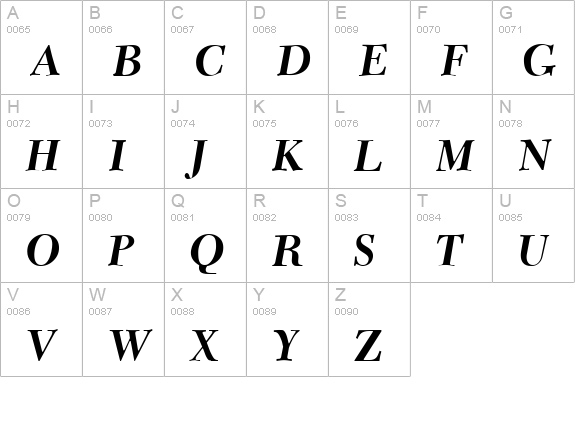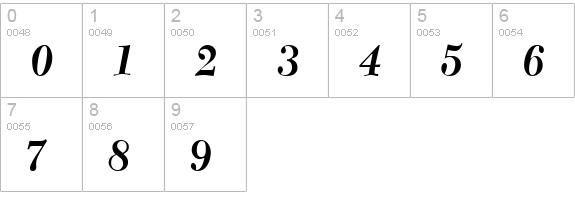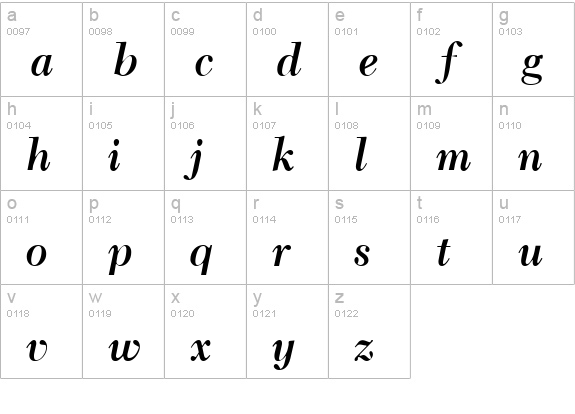
Camelia Bold Italic Font Details
Camelia Bold Italic is a strong, high-contrast, italic variant in the Camelia typeface family \xE2\x80\x94 well suited to headlines, attention-grabbing titles, and strong calls-to-action.
Camelia Bold Italic is a stunning and versatile font that exudes elegance and sophistication. Its bold strokes combined with a subtle italic flair create a sense of modernity and style. Perfect for adding a touch of luxury to any design project, this font is ideal for titles, headlines, branding, and more. What's even better is that Camelia Bold Italic is available for free download at FontsMarket.com. So whether you're a designer looking to elevate your work or a business owner in need of a standout font for your marketing materials, Camelia Bold Italic is the perfect choice. Download it today and add a touch of bold elegance to your projects!